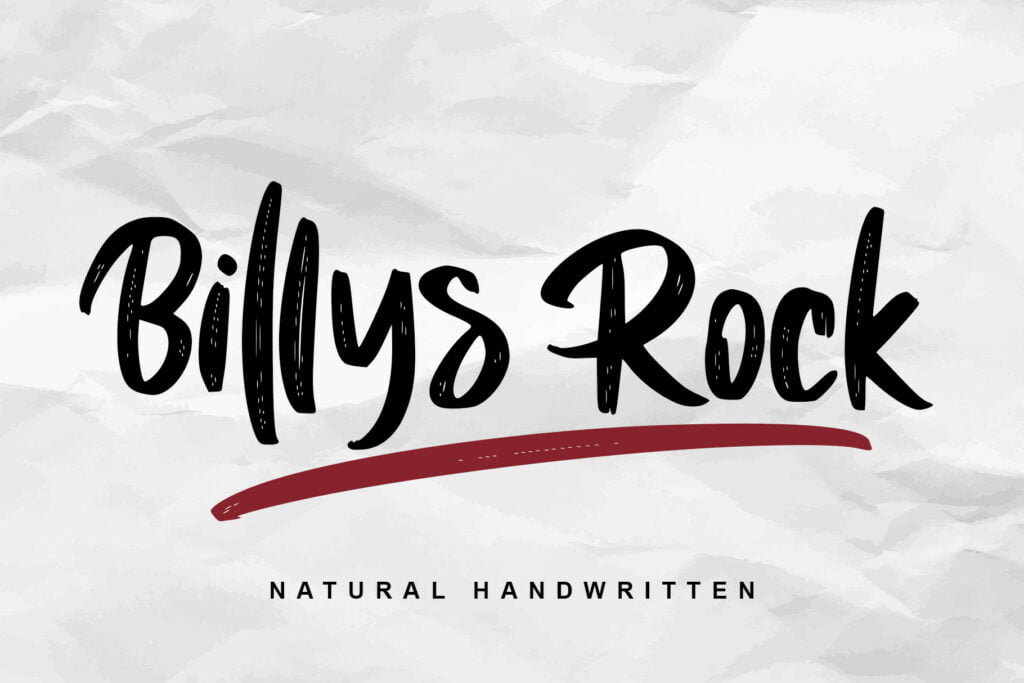
Billys Rock Font
Billys Rock is a lovely and delicate script font that exudes elegance and class. This font was particularly crafted for those who need a beautiful and refreshing look to their designs.
Billys Rock Brush Script Font